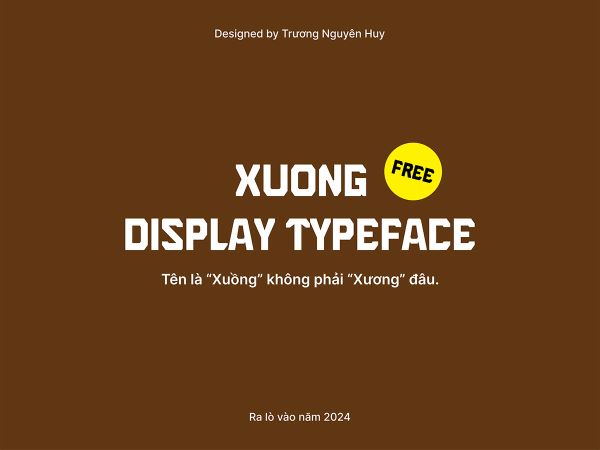
Xuong Font
Xuong by Truong Nguyen Huy and Kotie Studio is a display typeface whose design concept reaches deep into the material culture of southern Vietnam. Its name and form derive from the “Xuồng Ba Lá” — a traditional small wooden boat used on the rivers of the Mekong Delta region, handcrafted from three planks of wood joined by curved wooden bars and propelled by hand-carved oars. The typeface was notably used in the Vietnamese TV show “Anh Trai Vuot Ngan Chong Gai” in 2024. Free for personal and commercial use.